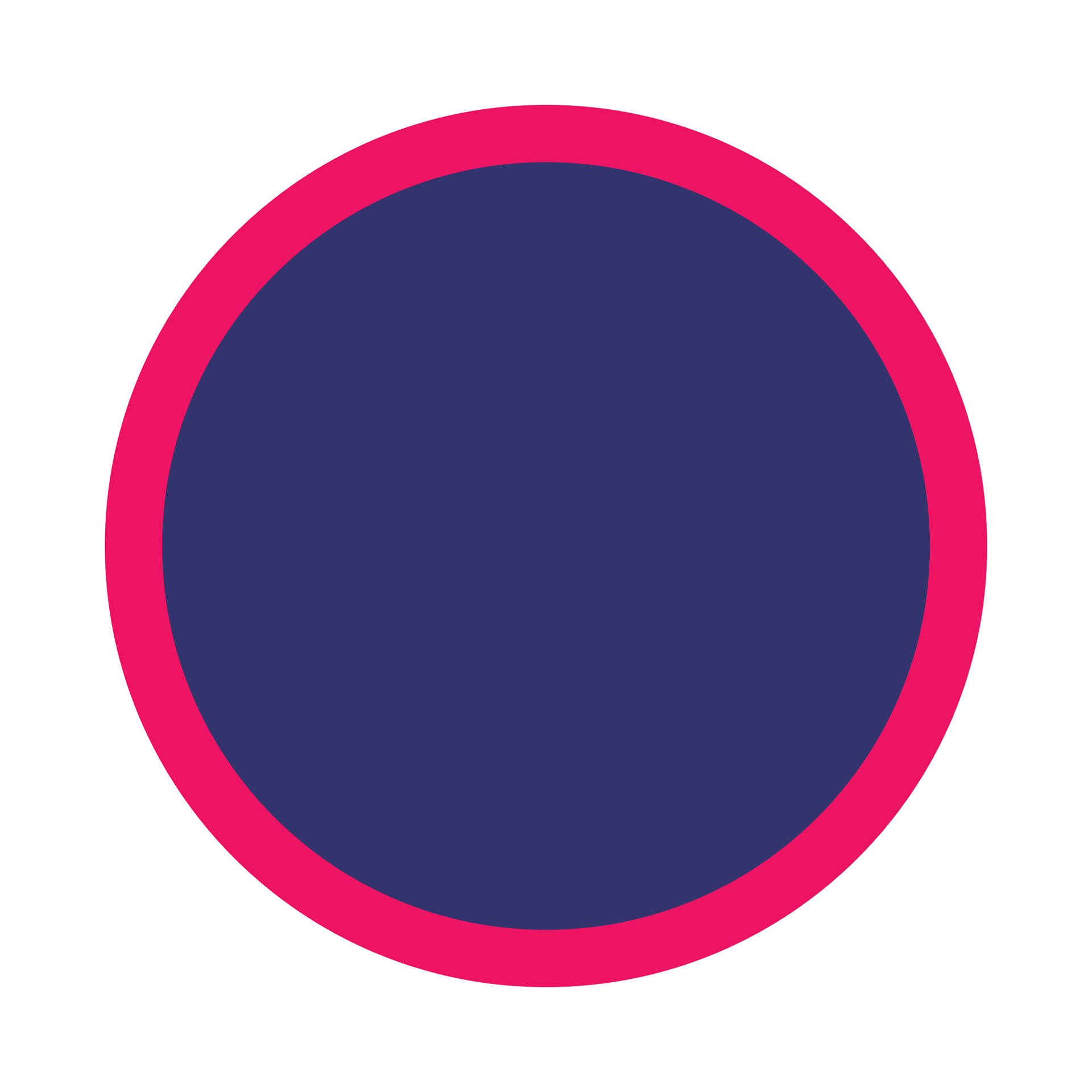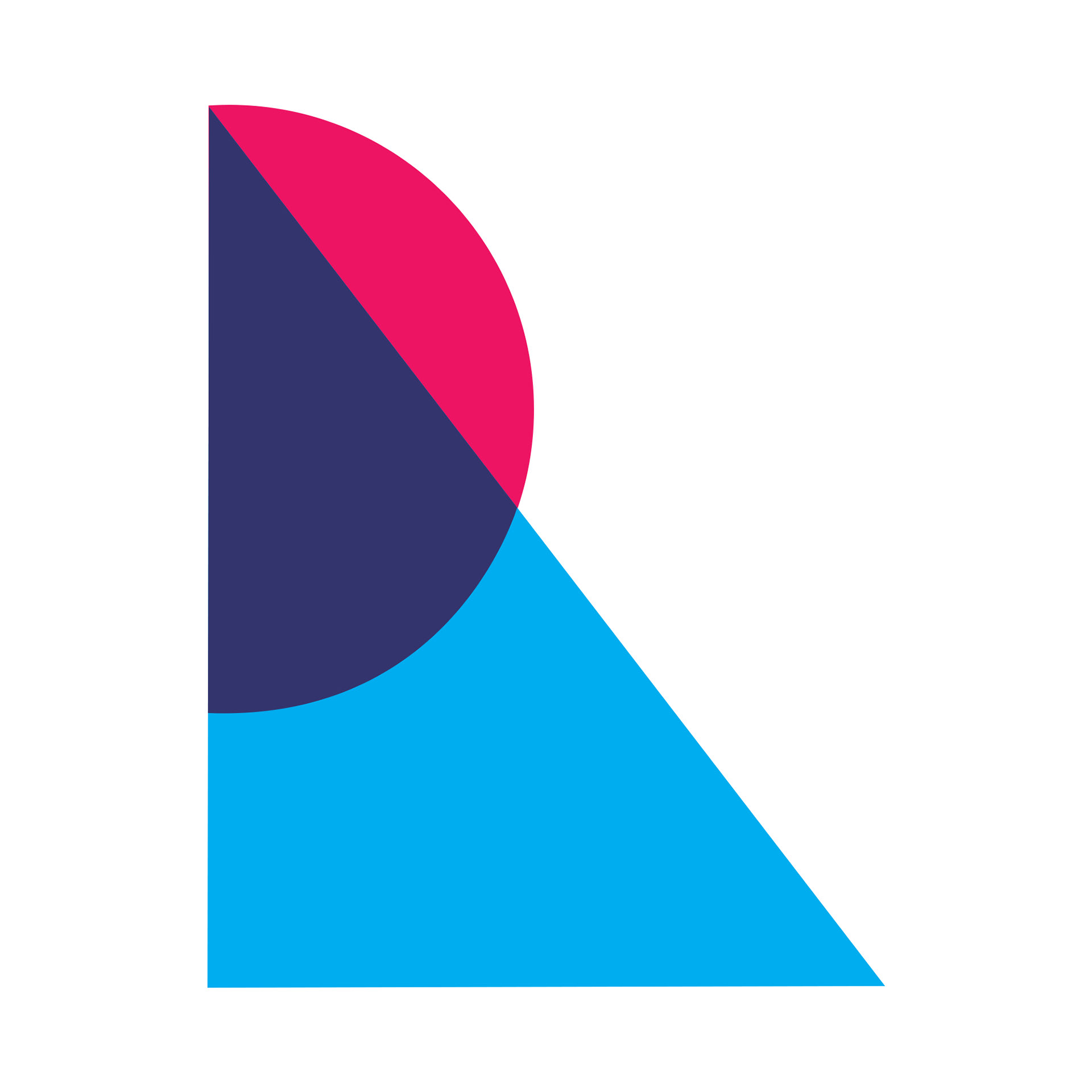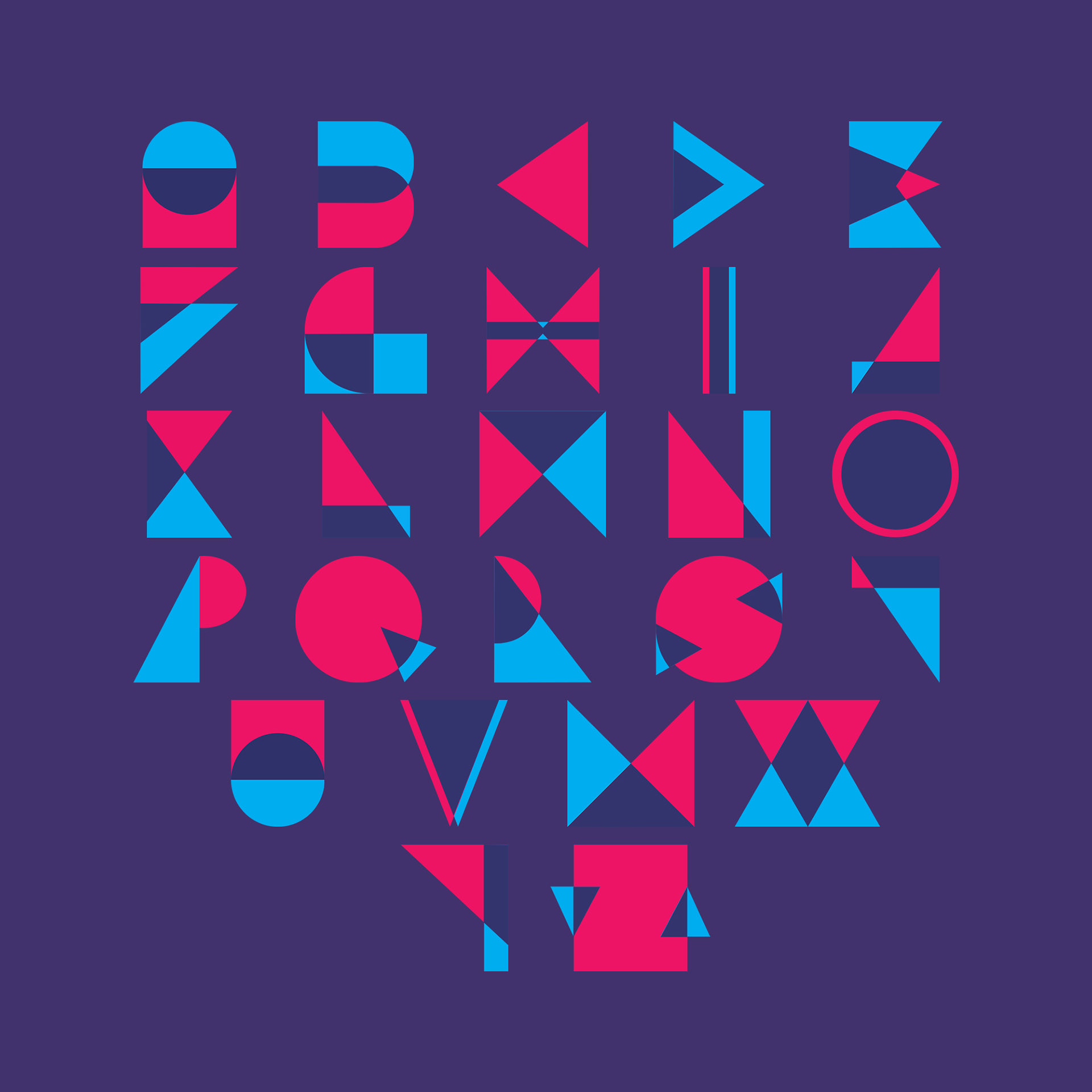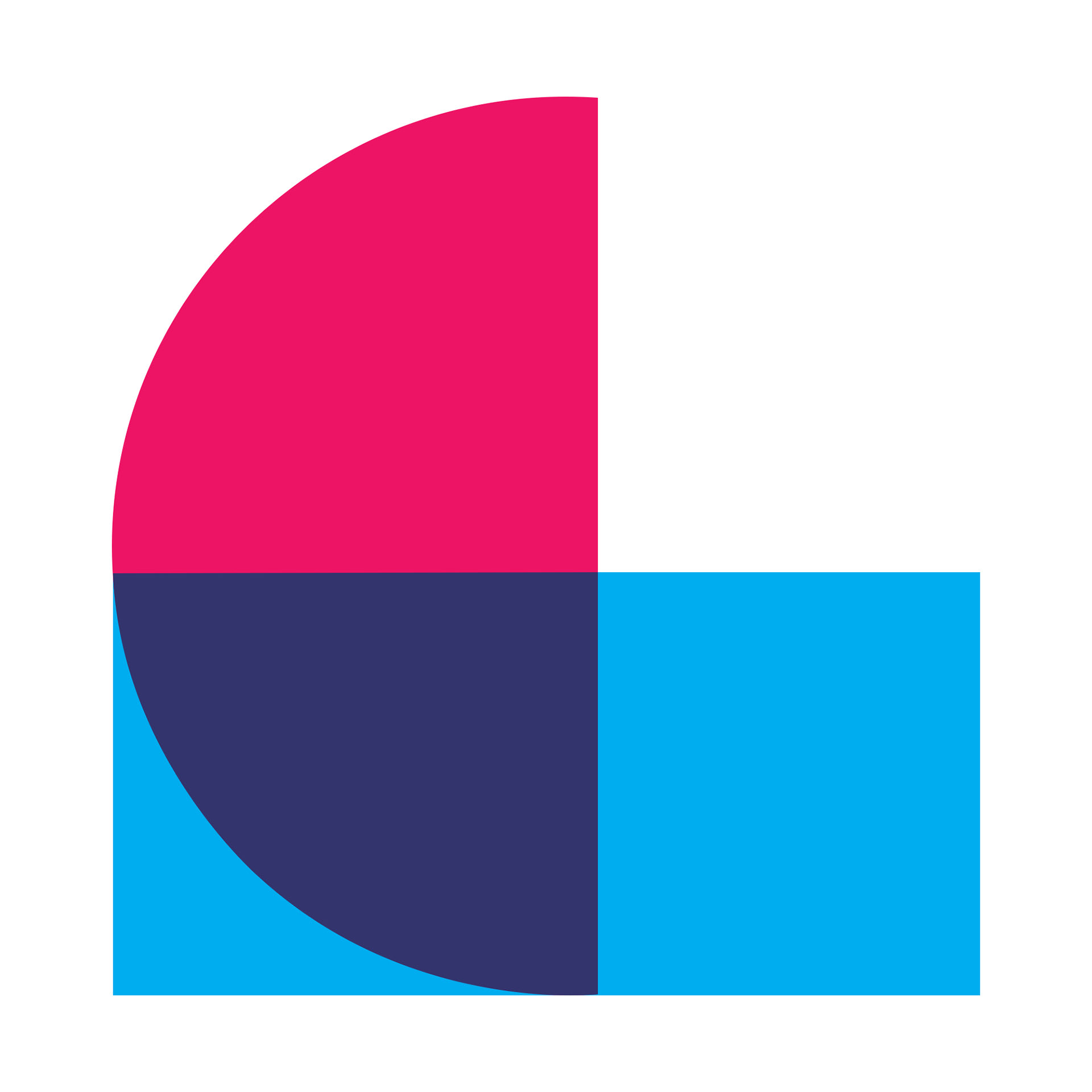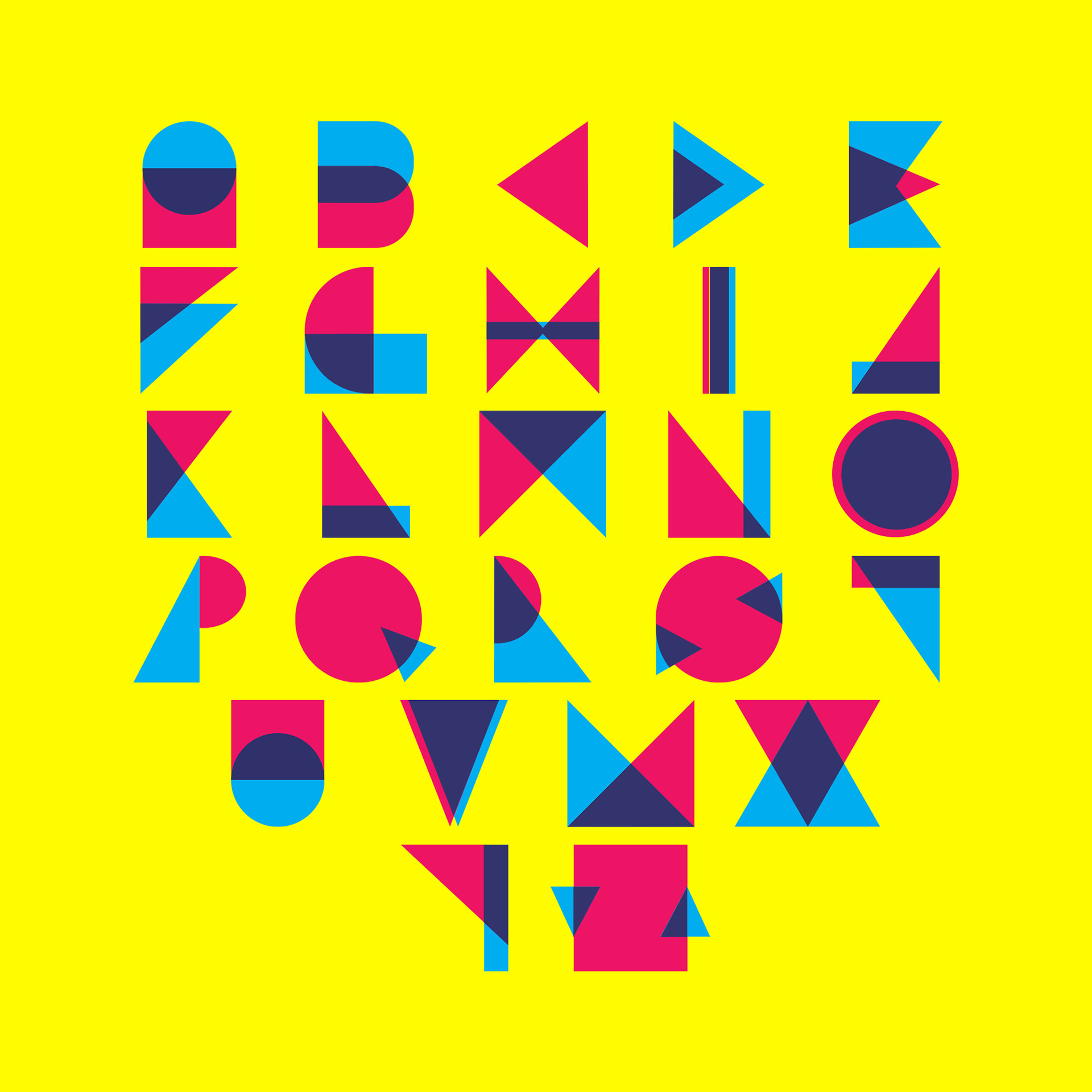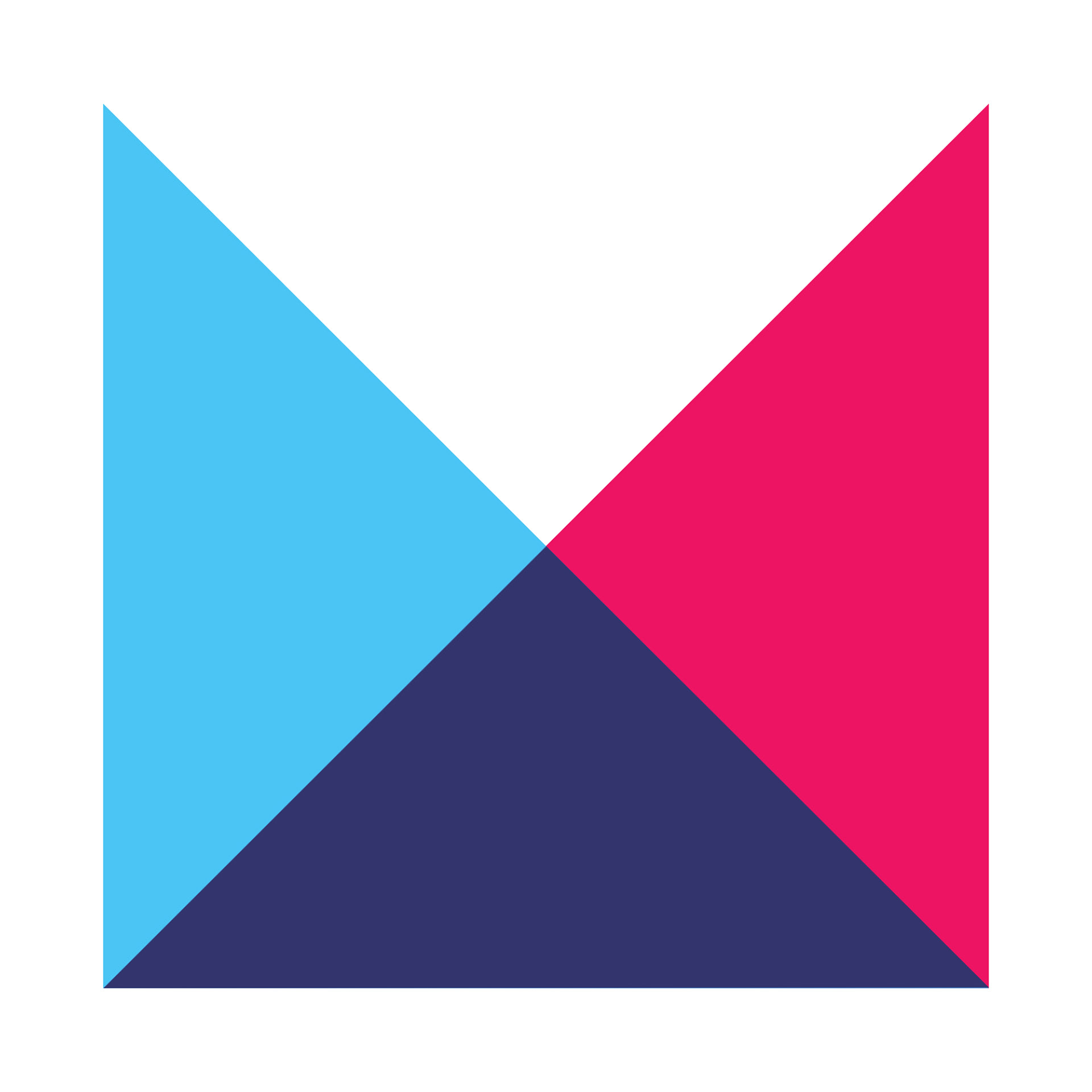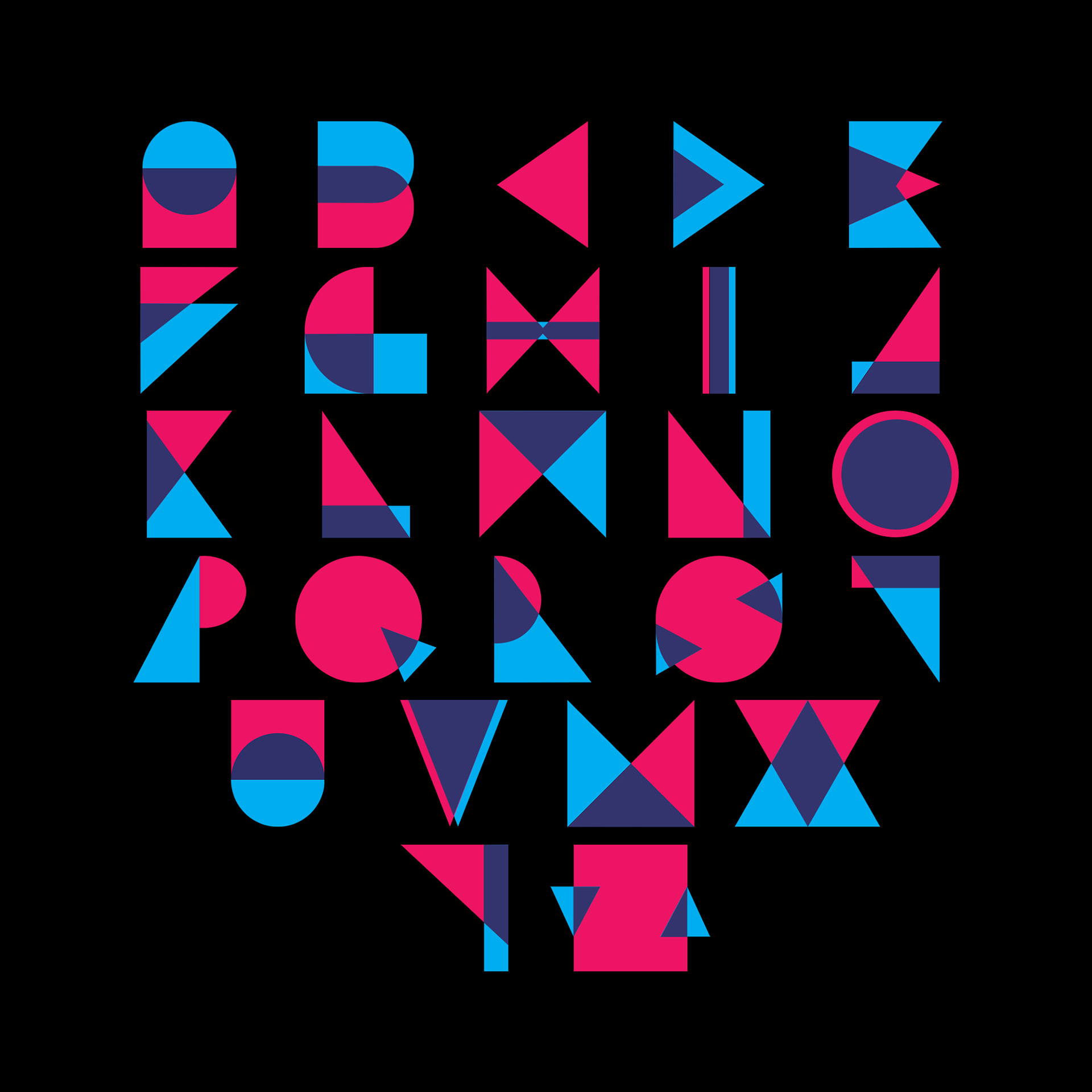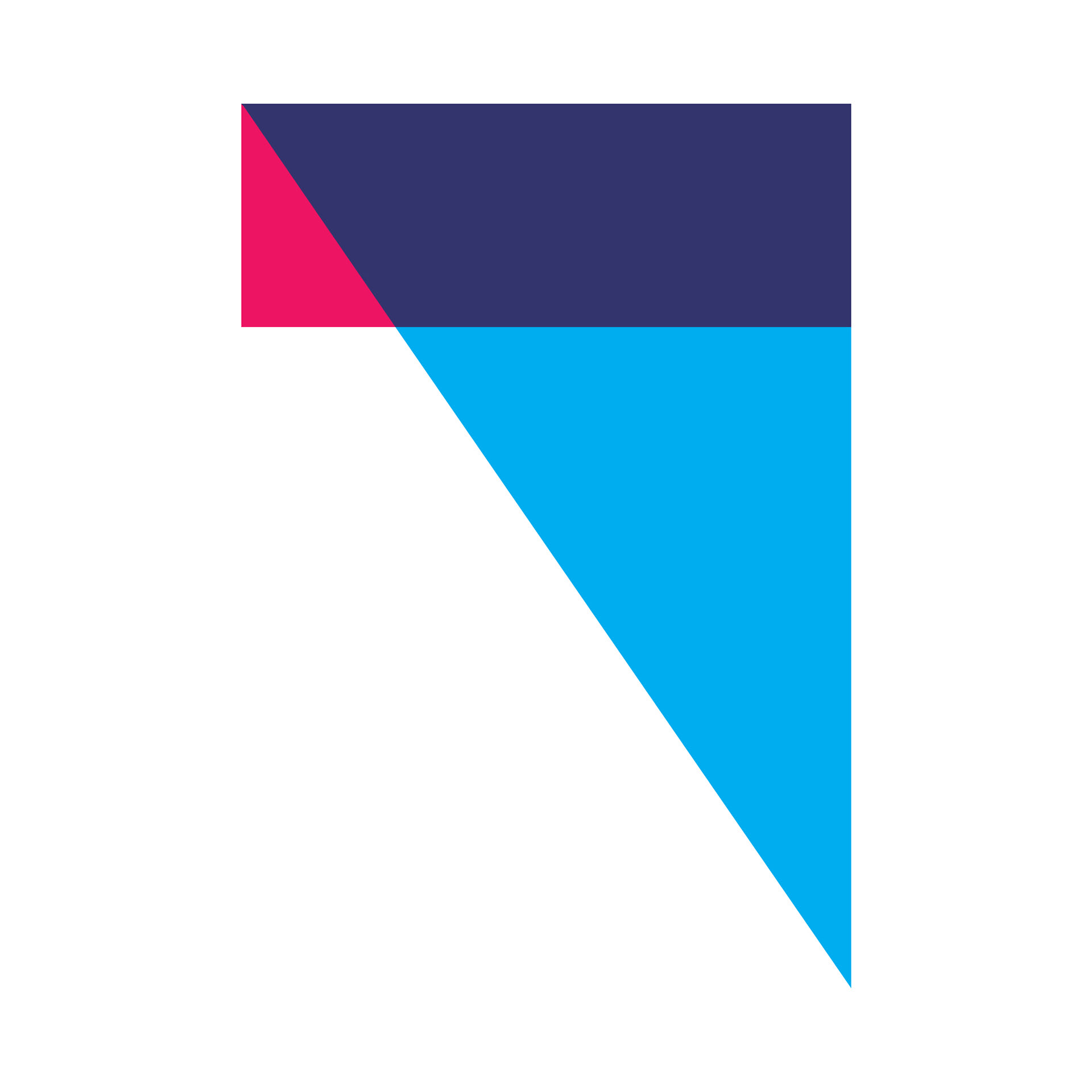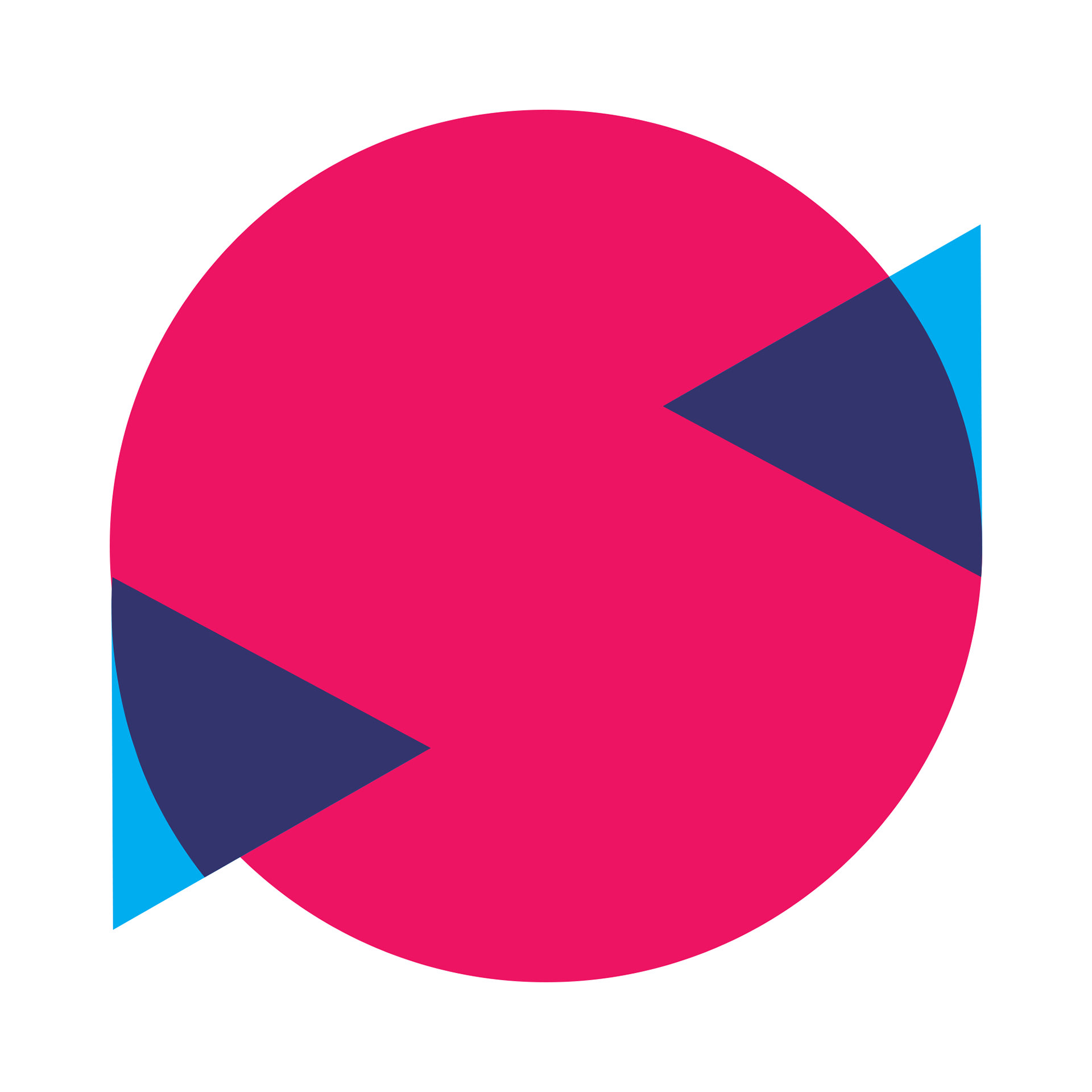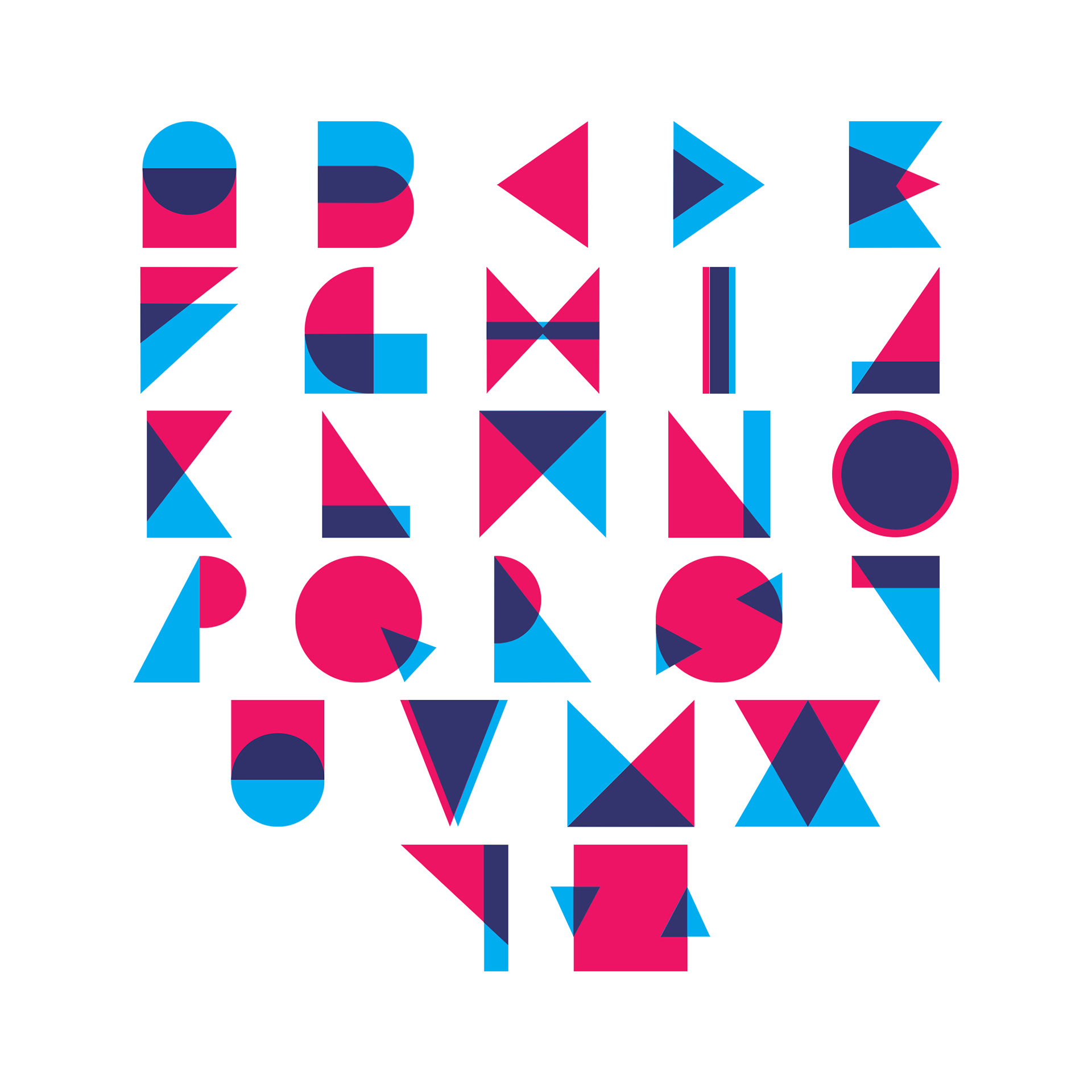
SYMBO GRAPH is an uppercase display typeface inspired by the symbols and graphemes font familes.
This typeface is, because of his many alternative options and weights, perfect for usage in posters/logotypes and headlines.